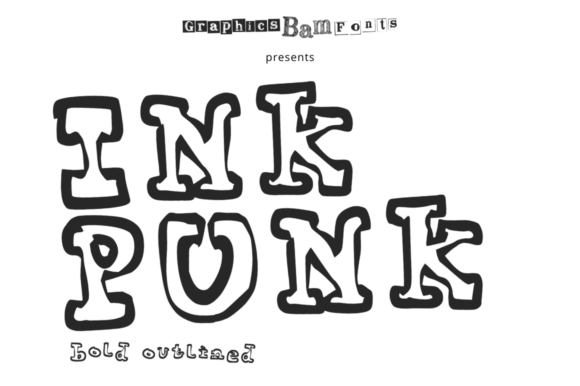
Journey into the world of typography with Ink Punk Outlined Bold, the modern display font that exudes boldness, playfulness, and a dash of funk. This remarkable font, crafted by the talented folks at GraphicsBam Fonts, awaits your command to unleash vibrant designs that capture attention and spark imagination.
Ink Punk Outlined Bold is more than a font; it's an experience. Designed to make a statement, this font demands attention with its thick, confident strokes and playful, energetic curves. It's the perfect choice for projects that crave a bold and unique aesthetic, demanding to be seen and remembered.
Dive into a world of endless possibilities with Ink Punk Outlined Bold, a font that knows no bounds. It effortlessly adapts to a myriad of designs, from striking logos and eye-catching posters to unconventional branding and social media posts. Let its bold personality shine through in your presentations, flyers, and packaging designs, leaving an unforgettable impression on your audience.
With Ink Punk Outlined Bold, numbers take center stage, dancing across your designs with a captivating rhythm. Its perfectly crafted numerical glyphs transform ordinary numbers into captivating design elements, adding a touch of sophistication and flair to invoices, reports, infographics, and spreadsheets.
Unleash your creativity and embark on a typographic adventure with Ink Punk Outlined Bold. Its versatility and charm will inspire you to create designs that resonate, leaving a lasting impact on your audience. Embrace the boldness, embrace the fun, and let your designs make a statement with Ink Punk Outlined Bold.